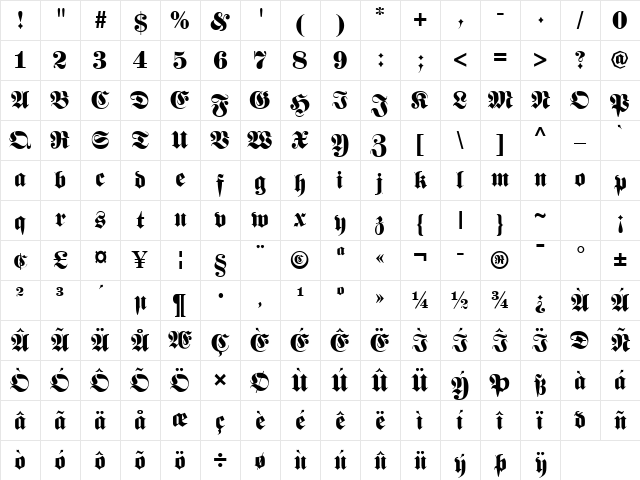
Barron Regular
Barron Family
Design Context for Barron
Barron is a composed and adaptable typeface that performs quietly and consistently across a wide range of design contexts.